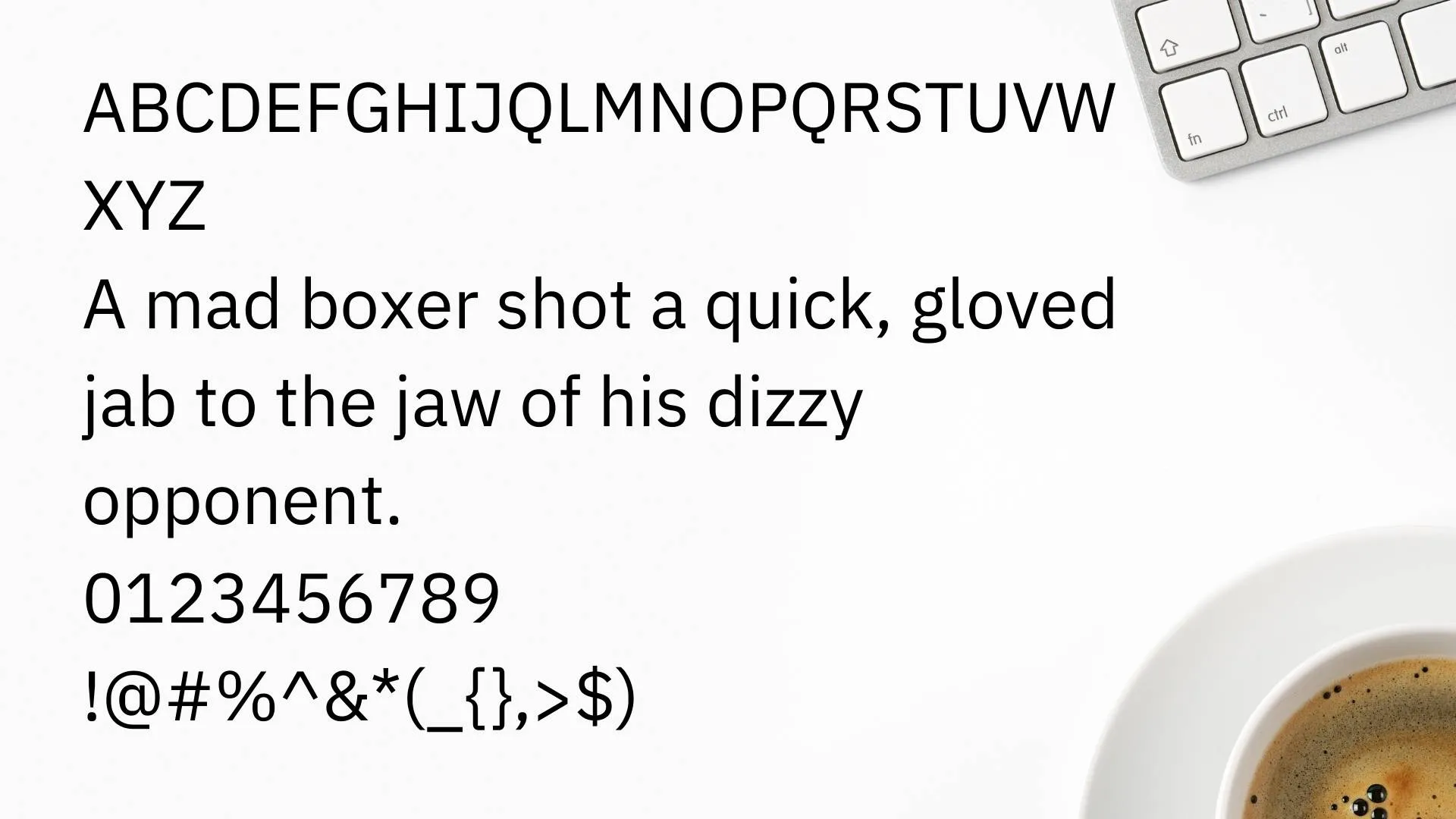
IBM Plex Font is a very famous font that was designed by a very famous designer named “Mike Abbink”. This typeface font is made to inspired by a franklin gothic font.
This font family comes in 32 styles and it also has many unique glyphs and alternates that give your design an attractive look. It also has punctuation glyphs, uppercase, lowercase, numerals, characters, and many alternates that look so amazing.
IBM Plex Font Info
| Name | IBM Plex Font |
| Designer | Mike Abbink |
| Style | Sans-serif |